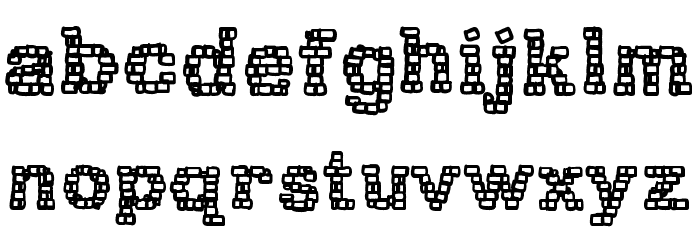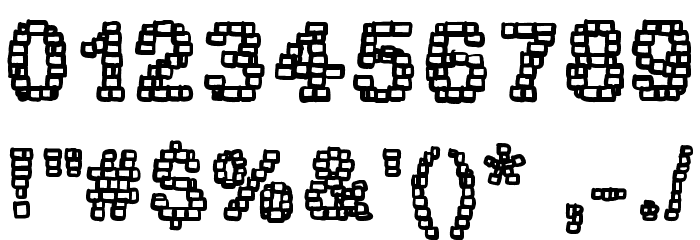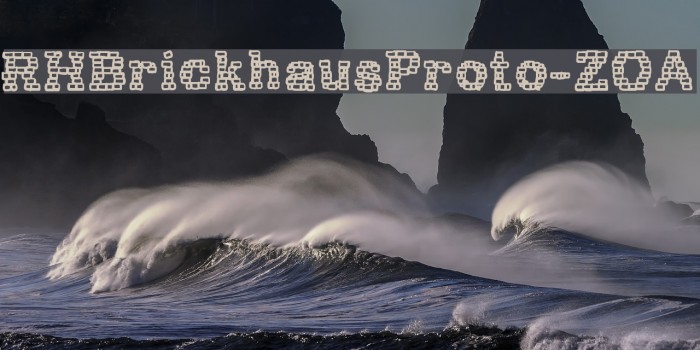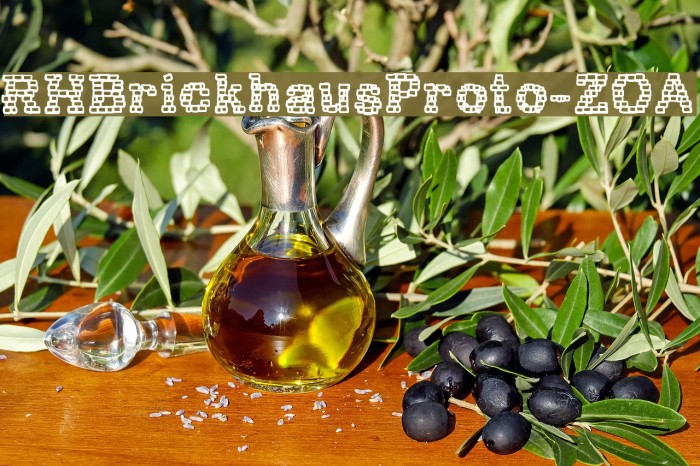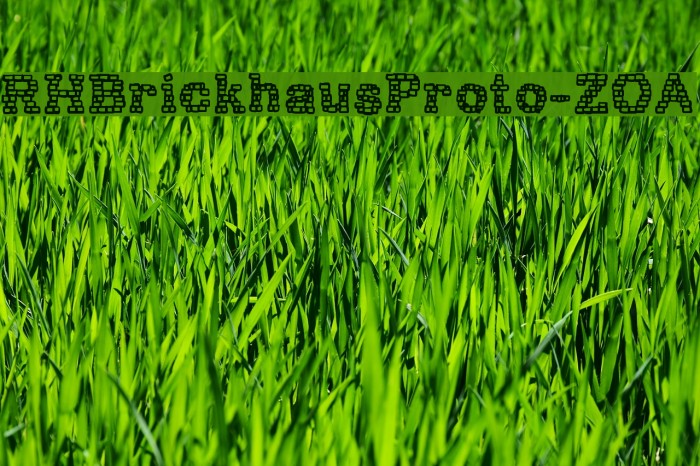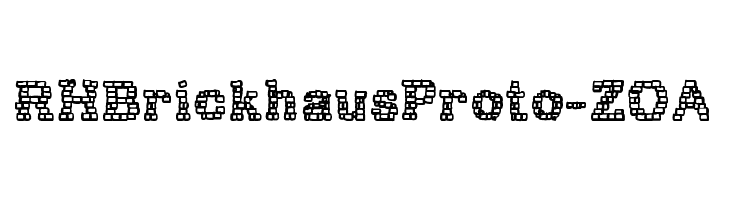
RHBrickhausProto-ZOA Font
This font features a unique and playful design, characterized by its bold, blocky letters that resemble a mosaic or brick pattern. Each character is composed of small, square-like elements that create a textured, three-dimensional effect. The font maintains a consistent structure across uppercase, lowercase, numbers, and special characters, making it visually cohesive. Its decorative style is eye-catching and adds a sense of fun and creativity to any project. The font's distinct appearance makes it suitable for projects that require a standout, artistic touch.
A playful, mosaic-style font with bold, blocky characters.
- Proposed Projects: Ideal for children's books, creative posters, playful branding, and artistic designs.